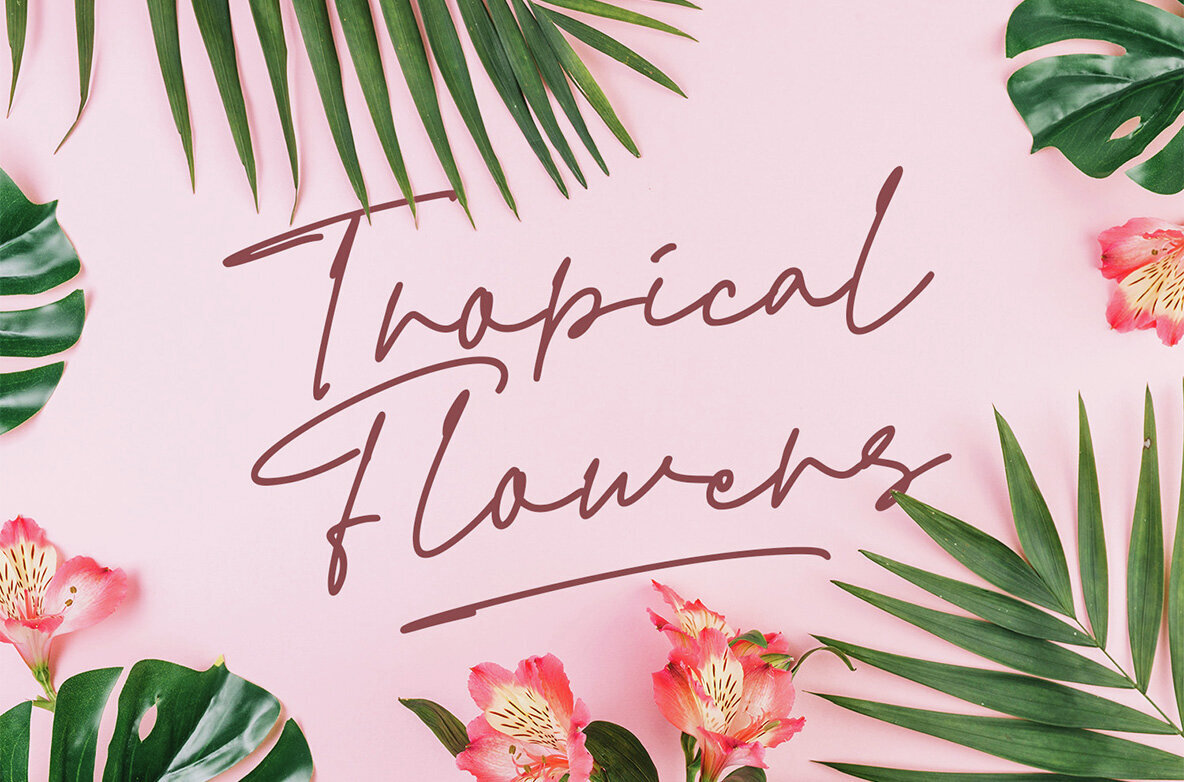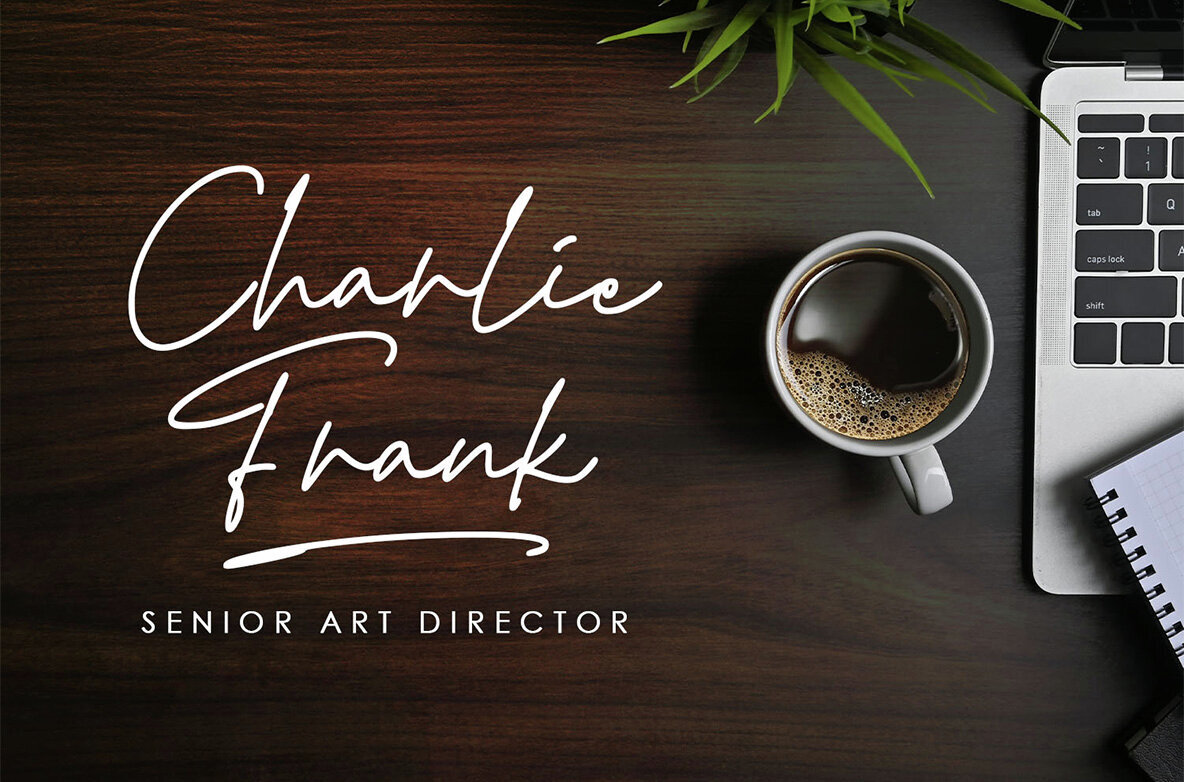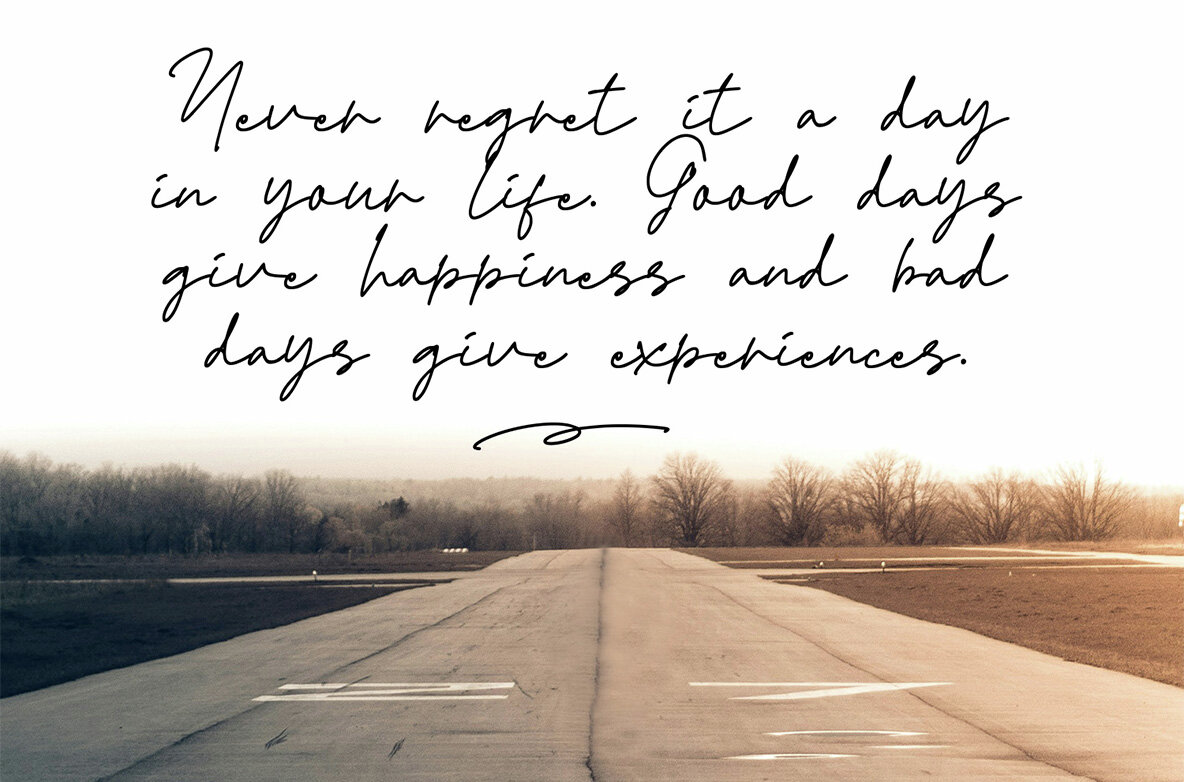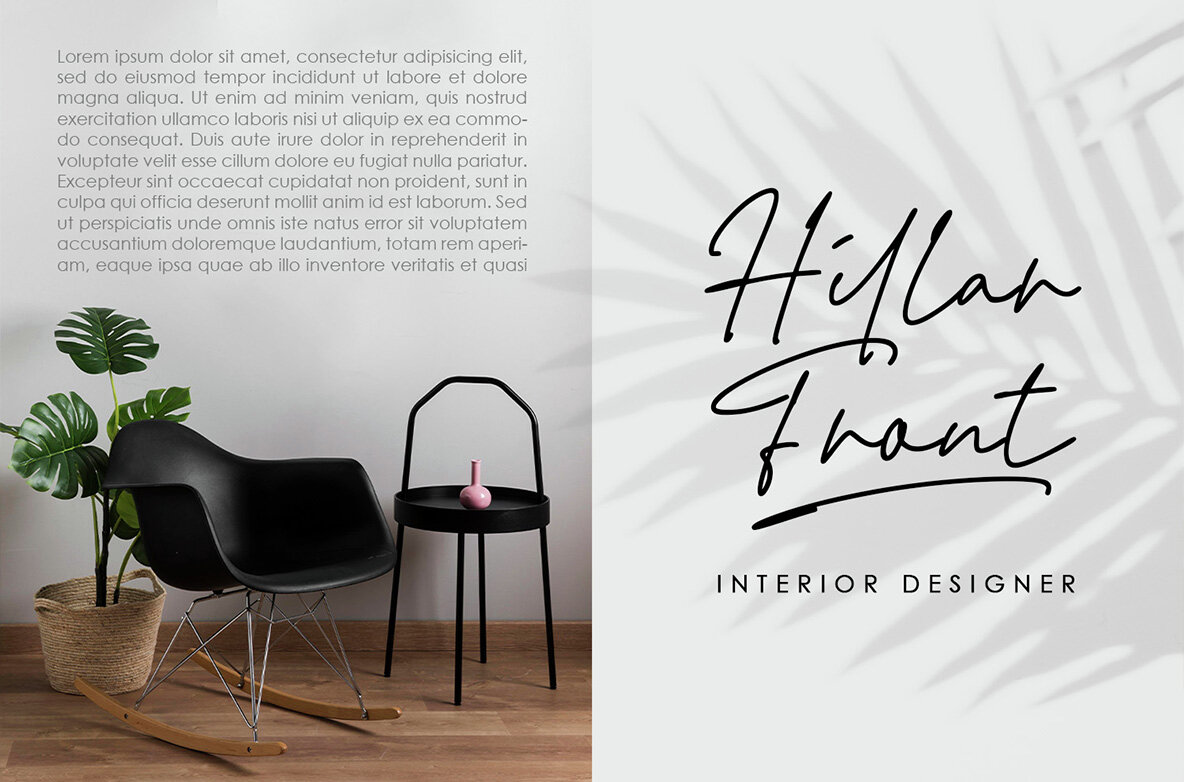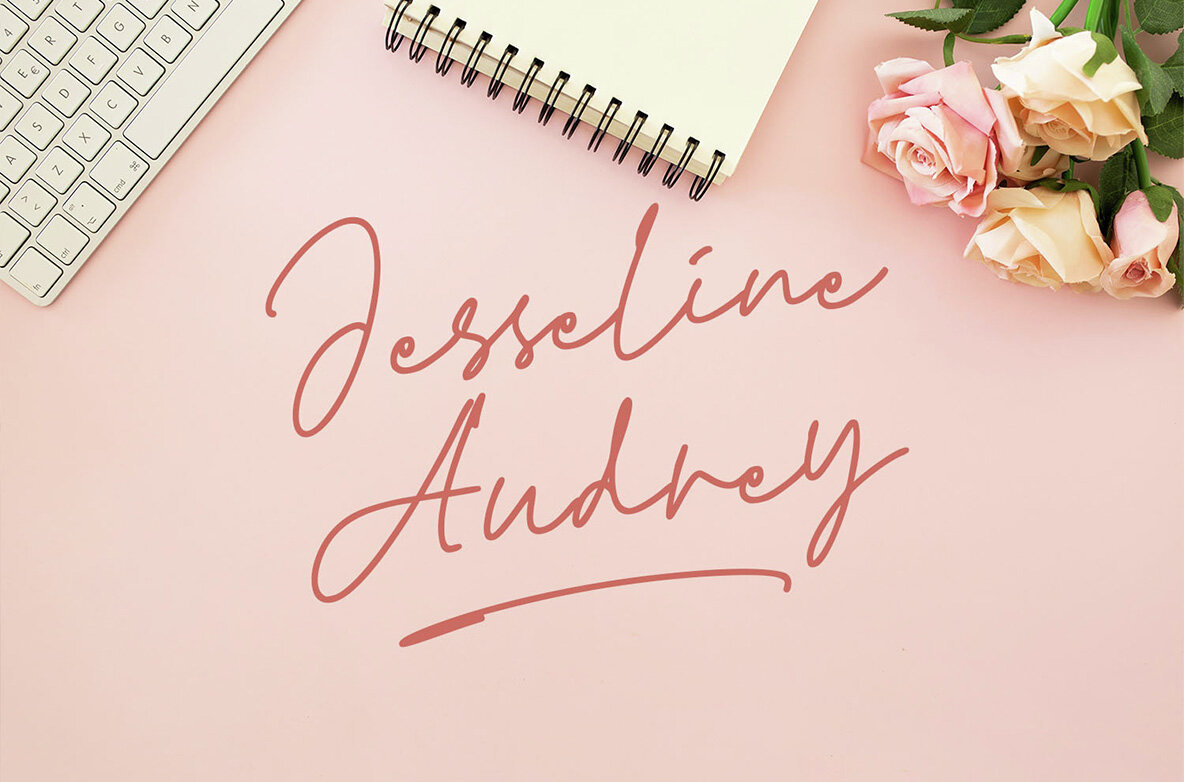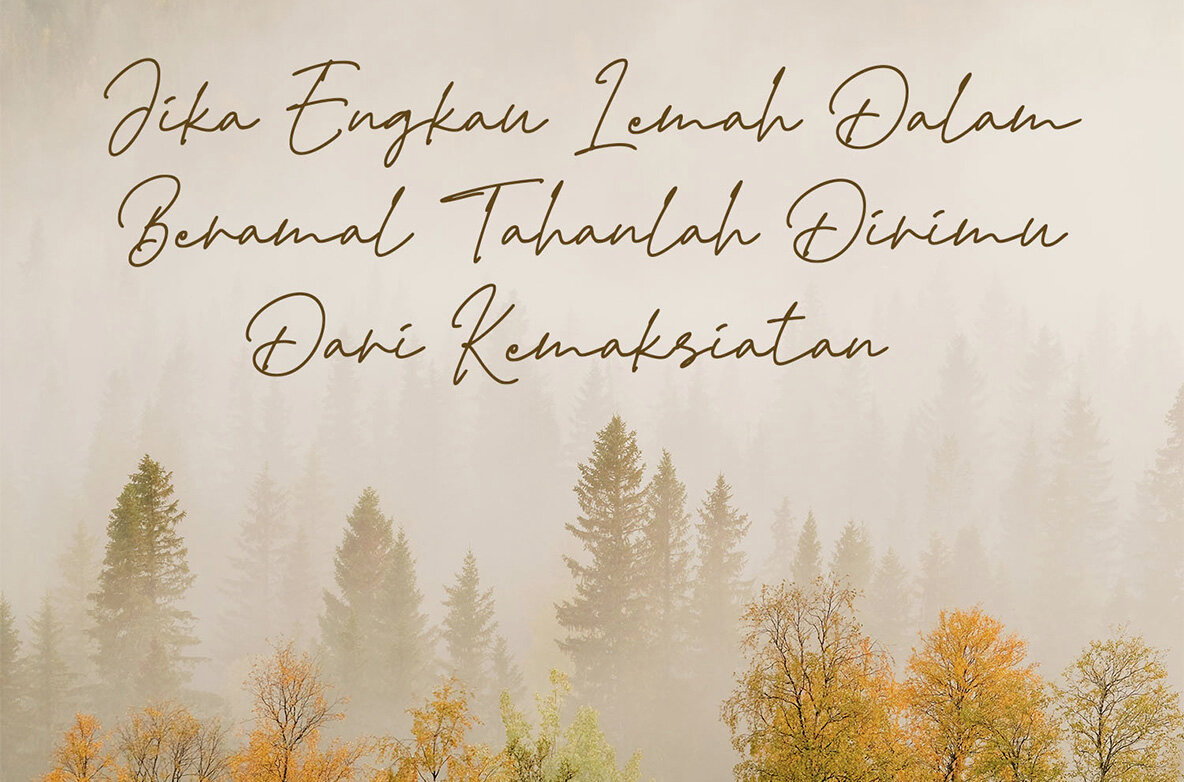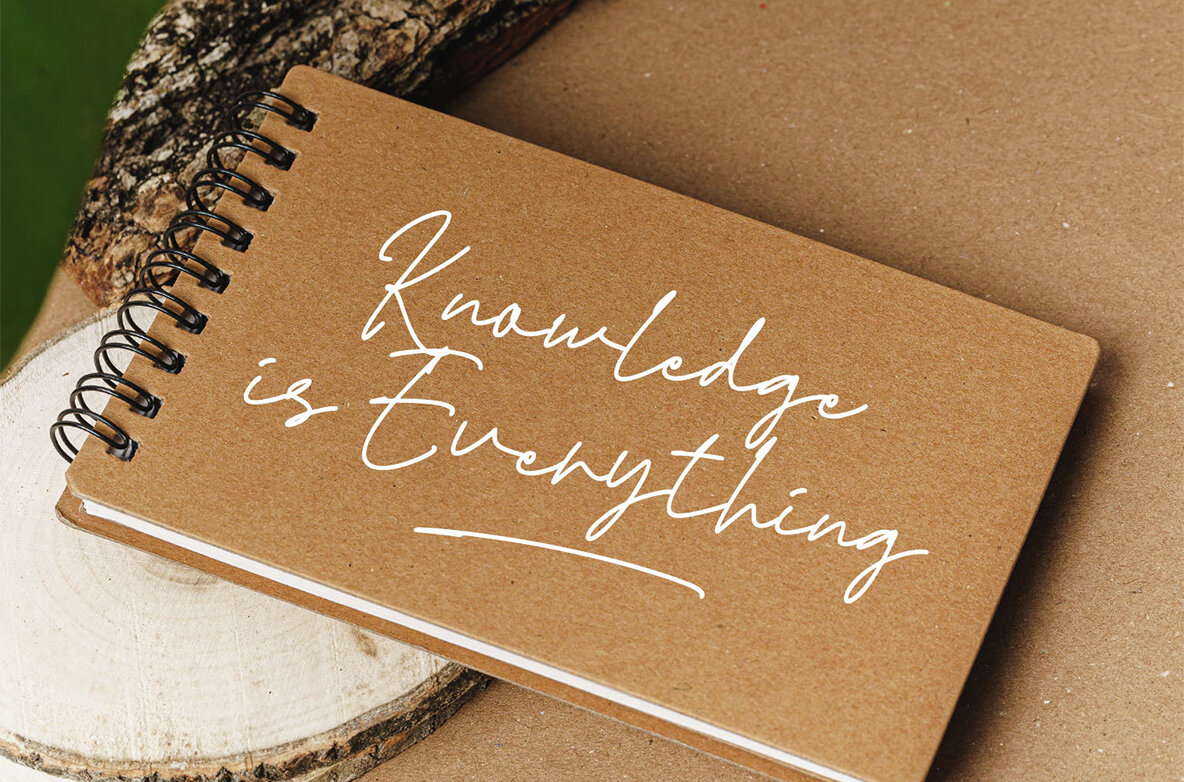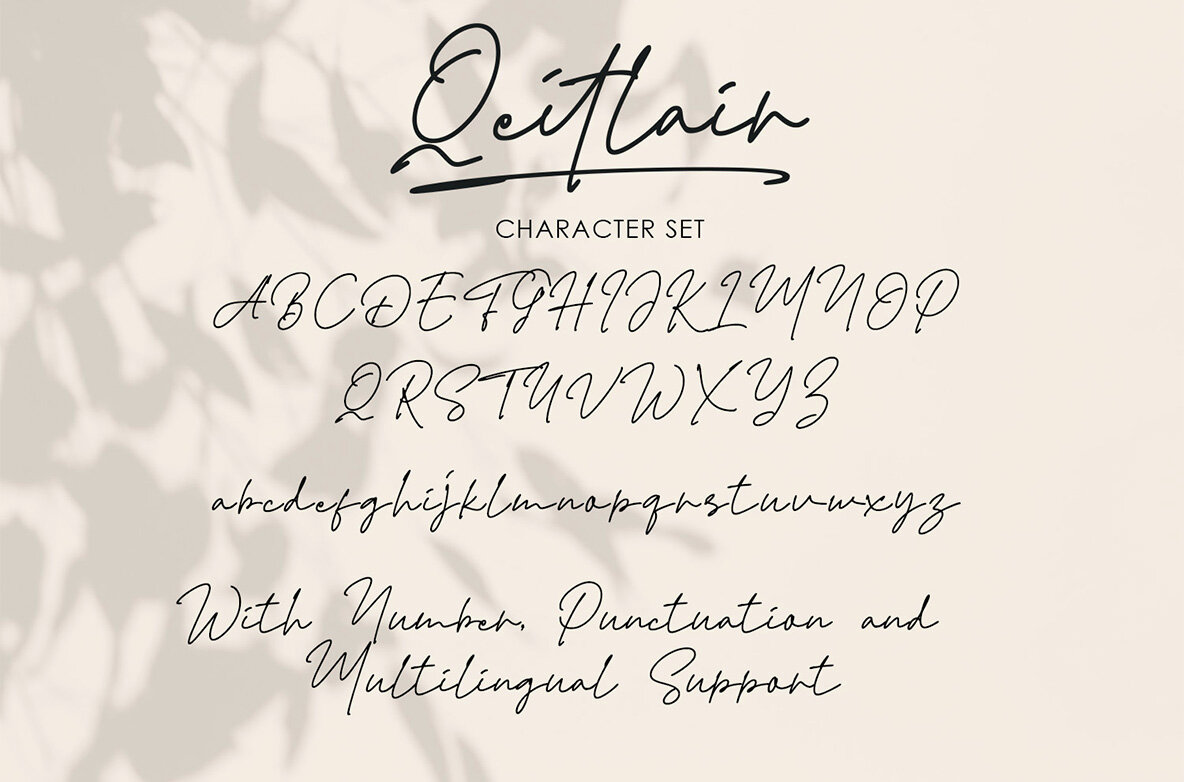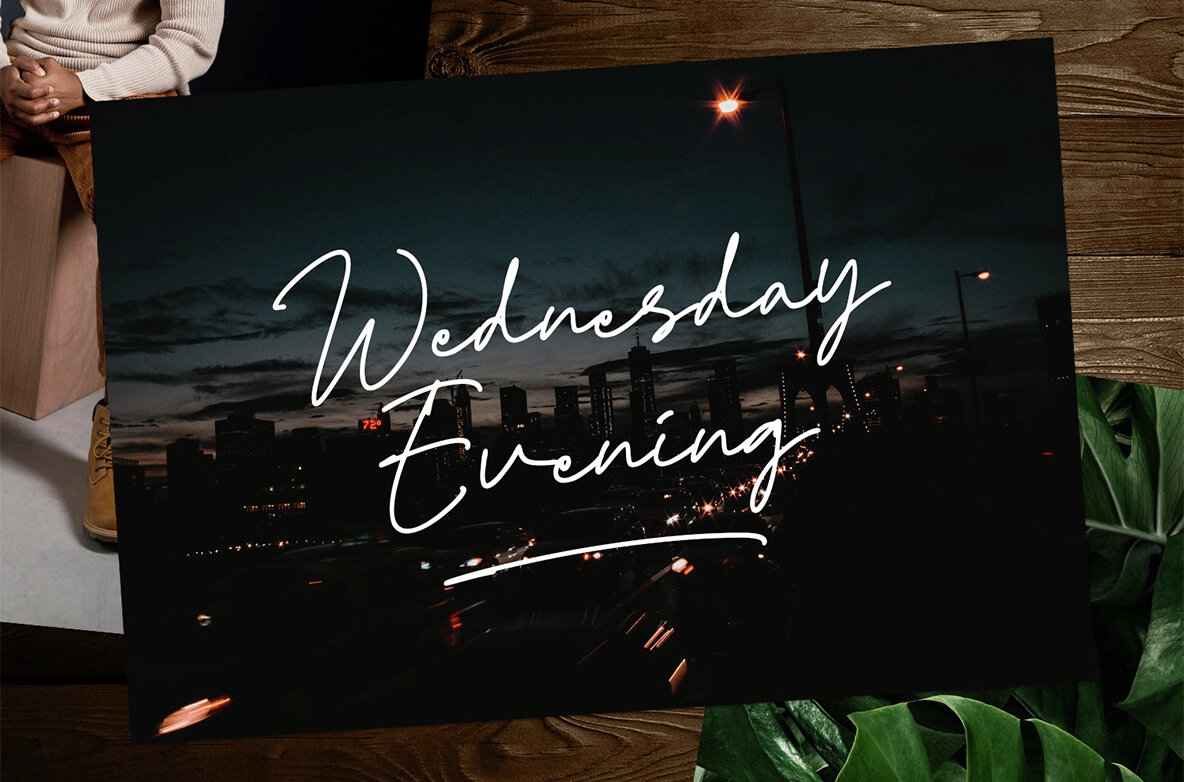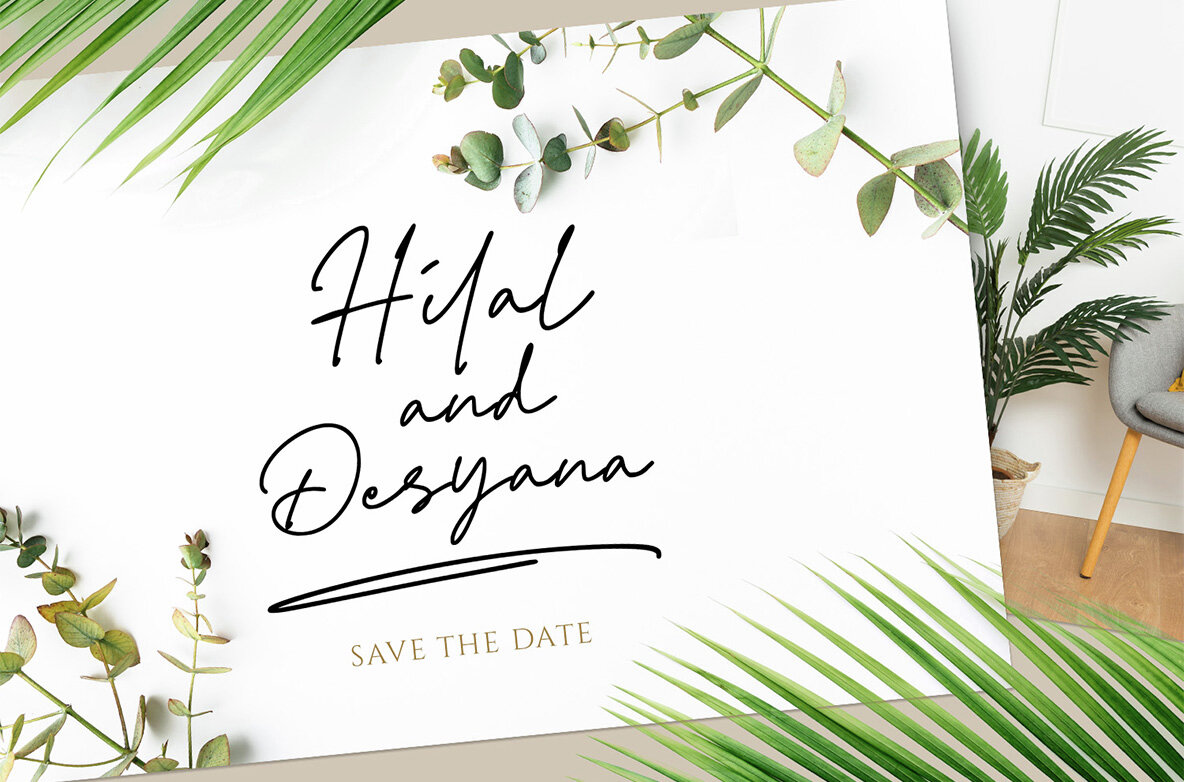
Qeitlair Font
Qeitlair Regular
Introducing “Qeitlair” – a signature that epitomizes elegance and maturity. Crafted with imbued a sense of charm, Qeitlair exudes vibes of refinement that captivate the senses. At its core, Qeitlair is a fusion of classic elements and modern flair, meticulously curated to reflect your unique persona. Its fluid strokes evoke a sense of fluidity and grace, while its bold presence commands attention with every flourish. The essence of Qeitlair lies in its versatility. Whether adorning a document, artwork, or personal correspondence, it adds a touch of distinction and flair that sets you apart. Each loop and curve tells a story, a testament to your individuality and style. With Qeitlair, every signature becomes a statement – a testament to your refined taste and discerning eye. Embrace the artistry of expression and leave your mark with confidence and optimism. SOFTWARE RECOMMENDATION